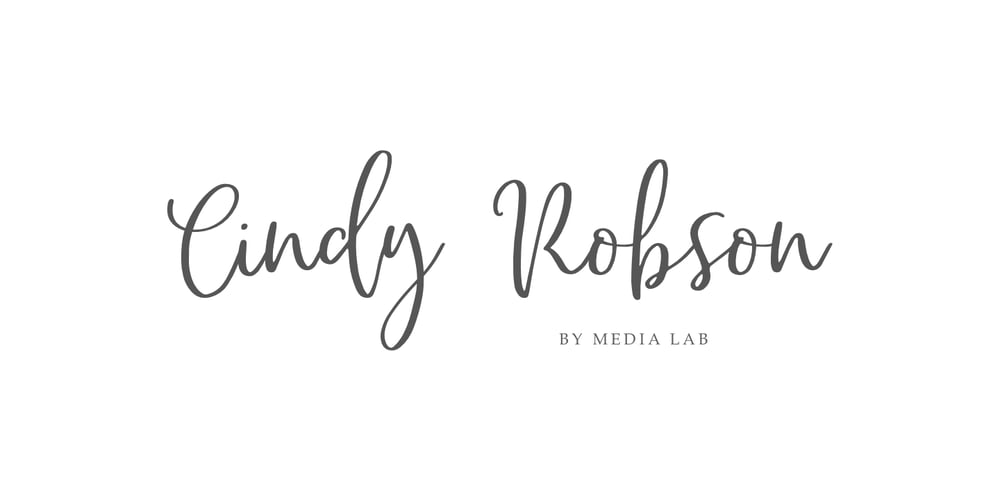
Dear Sister Font Family was designed by Dmitrii Chirkov and published by Supfonts. Dear Sister contains 1 styles and family package options. This modern calligraphy script has been attentively written, with gentle curves to produce a font thats completely distinctive and original. It contains a full set of lower & uppercase letters, a large range of punctuation, numerals, and multilingual support. Perfect for adding a elegant and unique touch to your lettering projects and branding Also with their help, you can create a Wedding lettering or beautiful frame for your home. Or just use for your small business, book covers, stationery, marketing, magazines and more. Check out my blog: instagram.com/media.lab.co pinterest.com/dmitriychirkov7